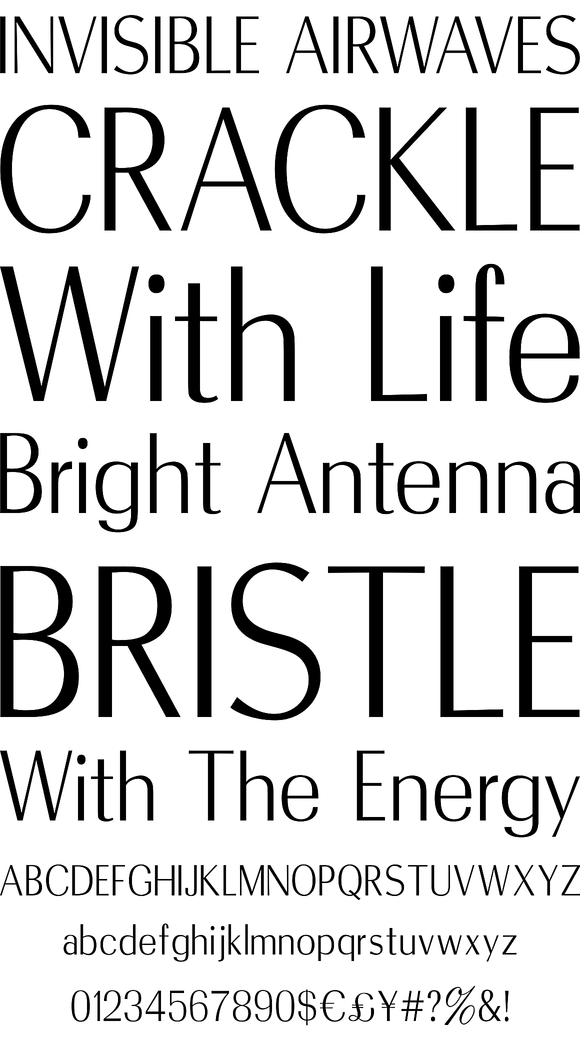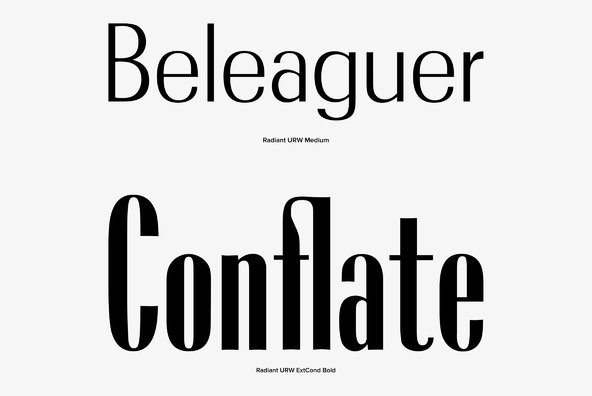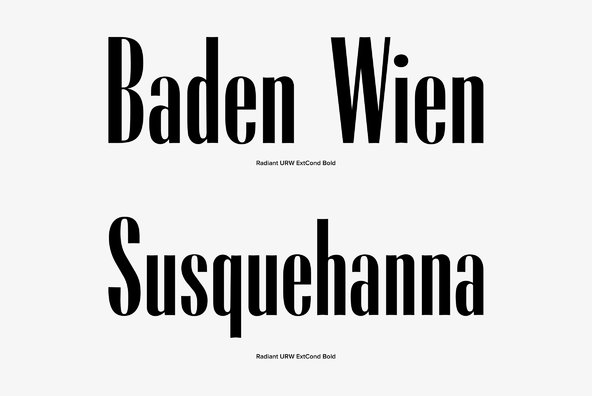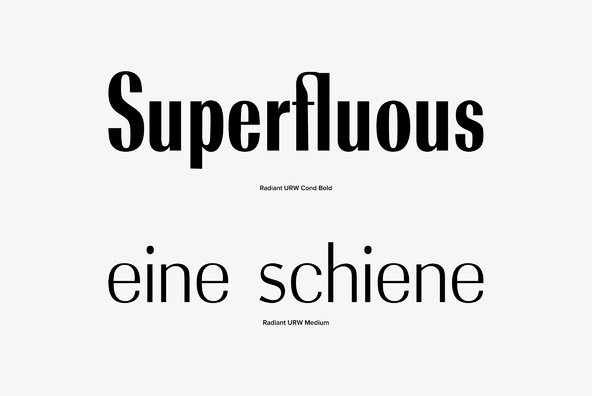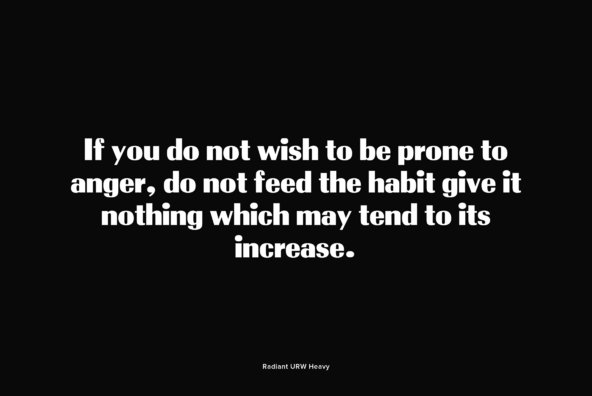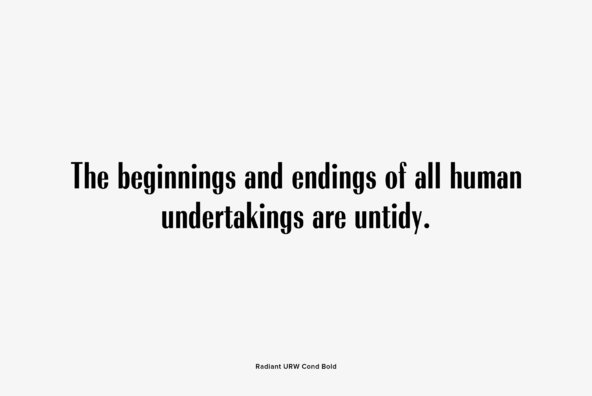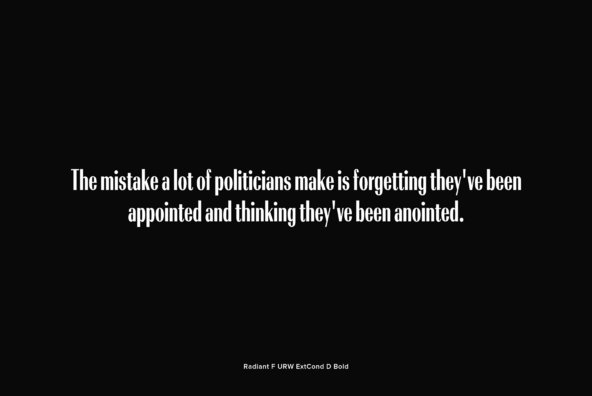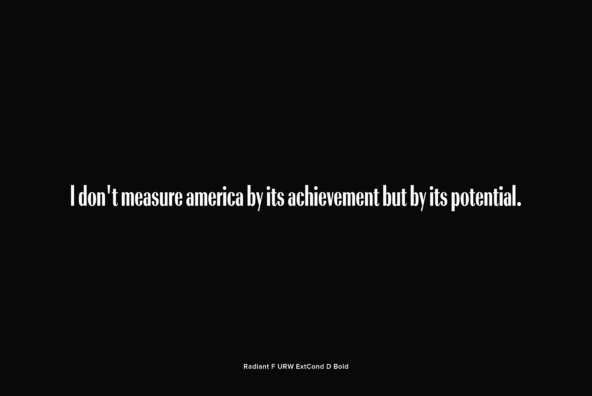
Radiant
Radiant was originally designed by R.H. Middleton in the early 1900s. This new version released by URW has been digitally engineered and remastered by Steve Jackaman and based from the original Ludlow drawings, circa 1938.